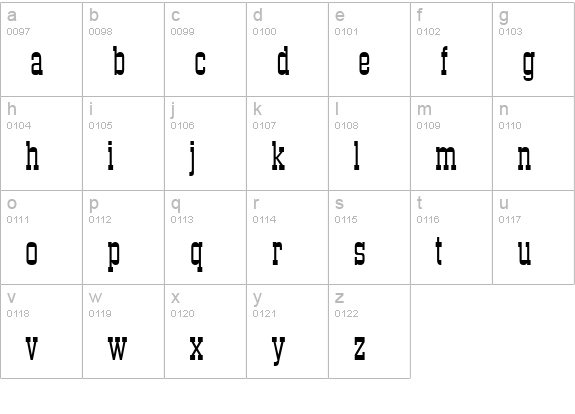
Branding Iron Font Details
Branding Iron font is a bold and rugged typeface that captures the essence of the Wild West with its distinctive design and strong presence. Inspired by the timeless tradition of branding livestock, this font exudes a sense of authenticity and heritage. Each character is expertly crafted to evoke the spirit of the frontier and the rugged landscape of the American West. This versatile font is perfect for creating eye-catching designs that demand attention and convey a sense of strength and resilience. Whether you're working on a logo, poster, or any other project that requires a bold and impactful typeface, Branding Iron font is sure to make a lasting impression. The best part? Branding Iron font is completely free to download at FontsMarket.com. This means you can add this unique and powerful font to your collection without any cost, making it a valuable asset for any designer looking to make a statement. Don't miss out on this opportunity to enhance your projects with the striking visual appeal of Branding Iron font.